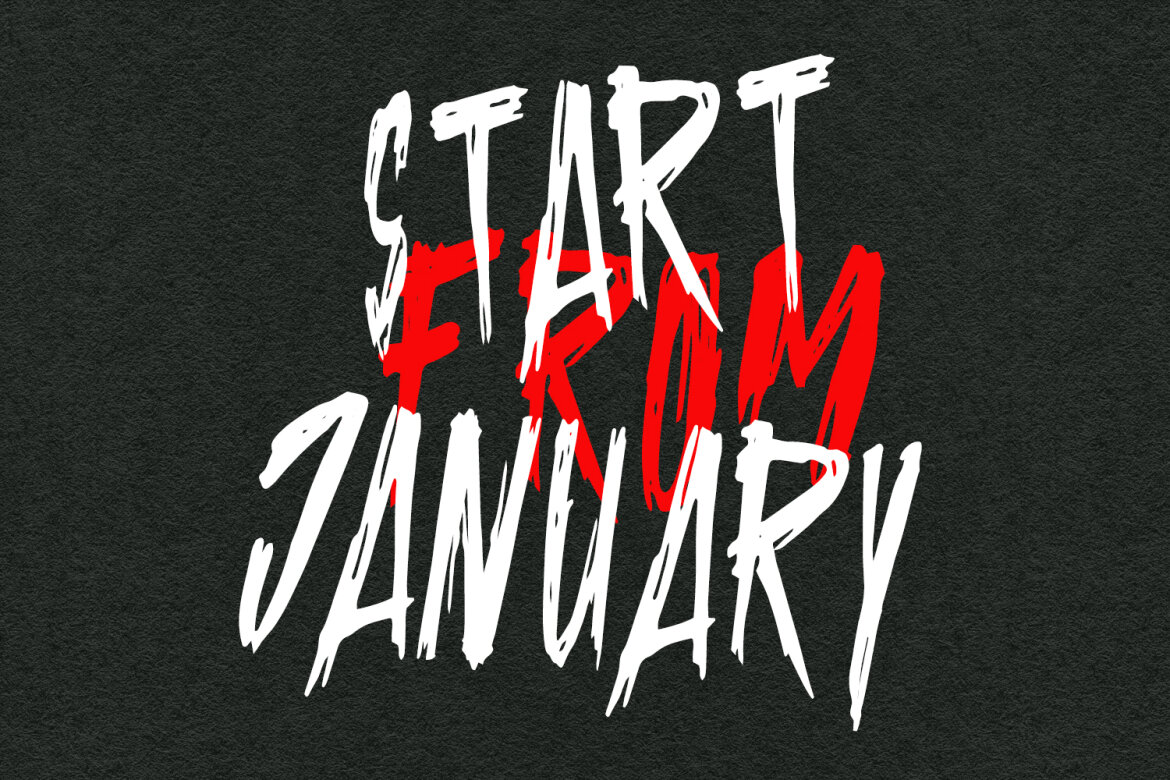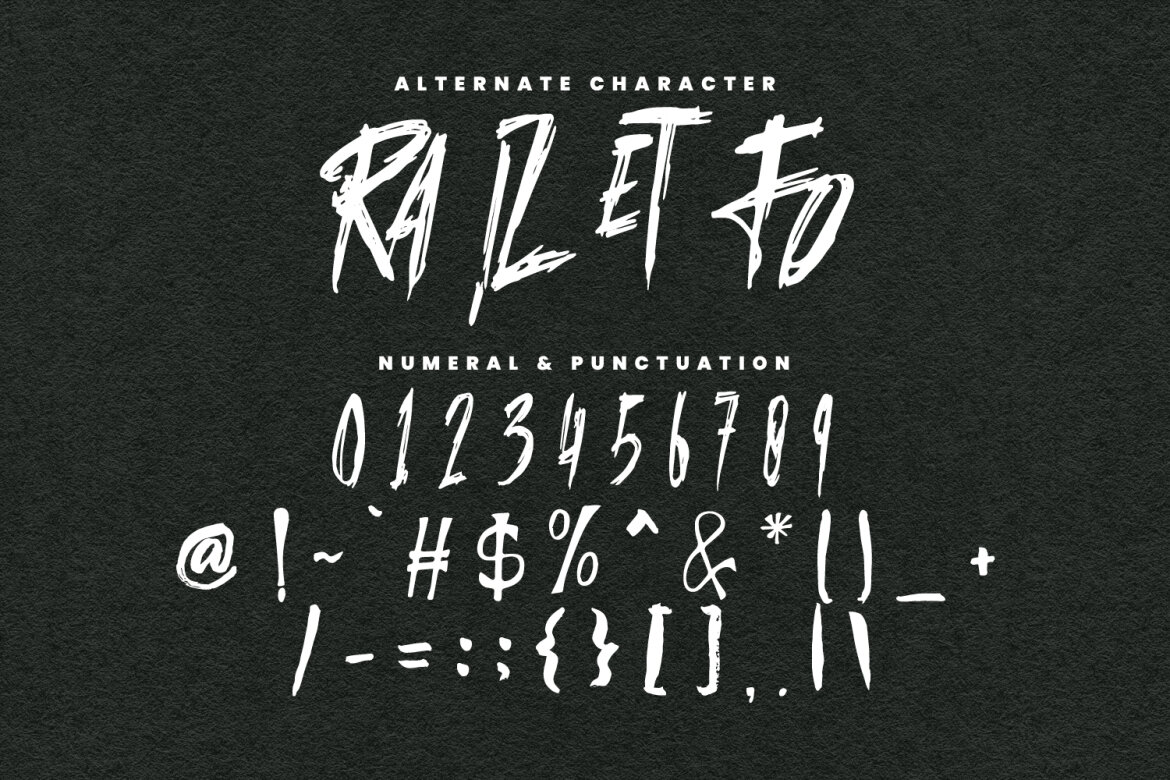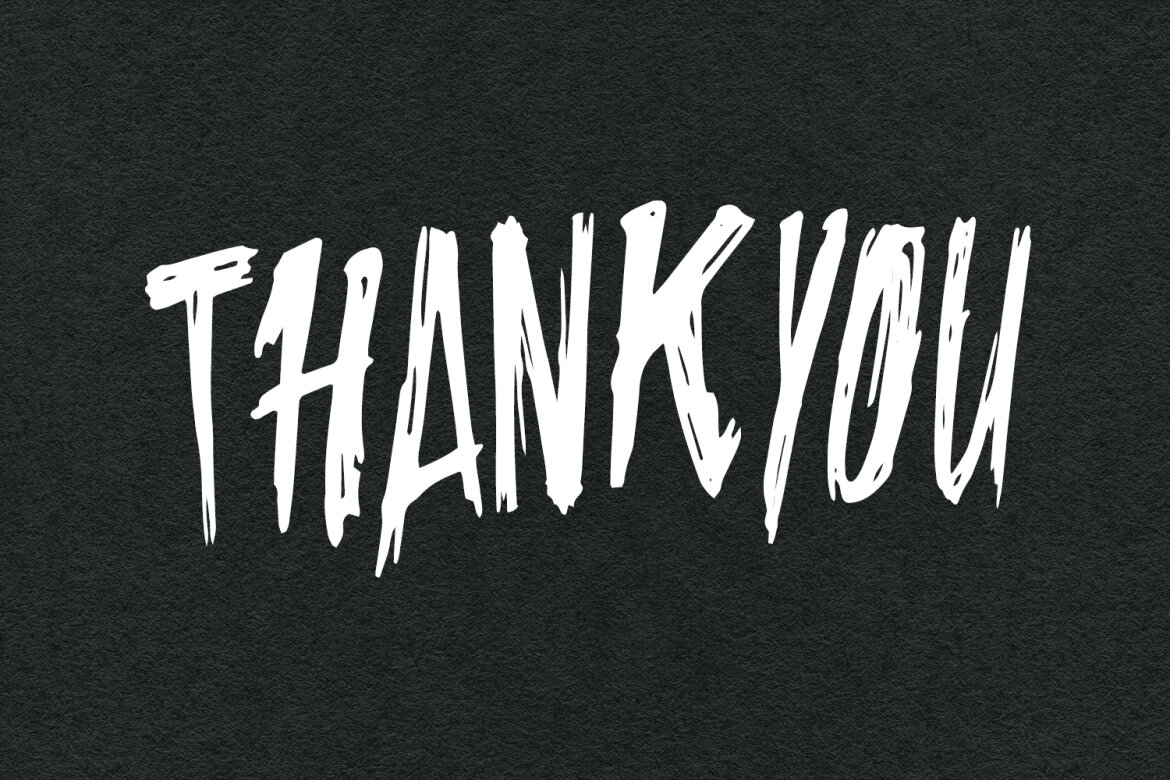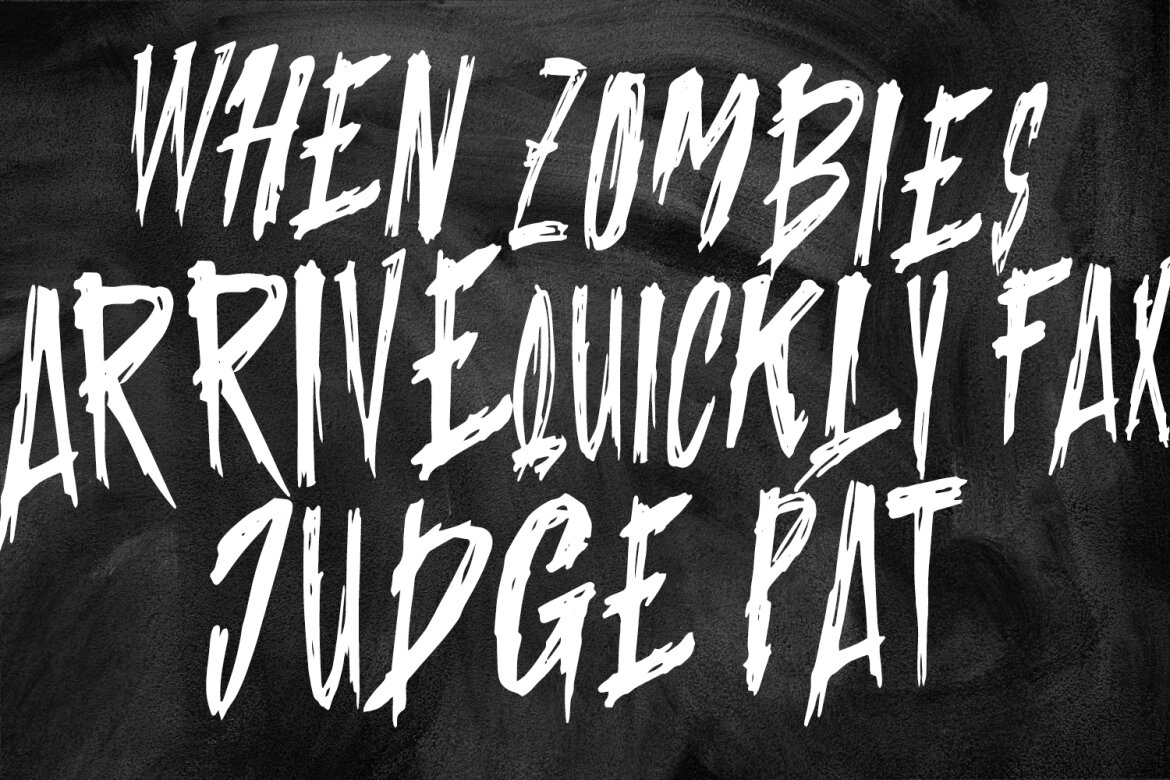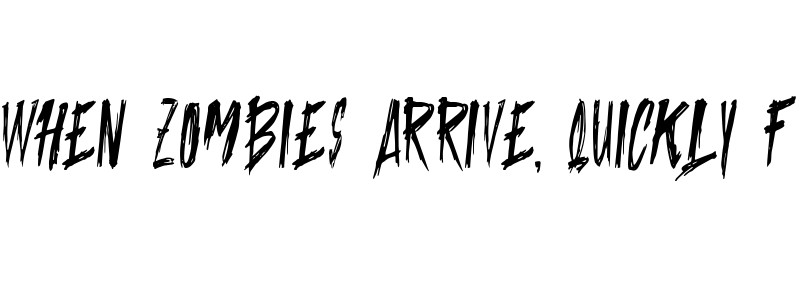
Craizets Demer FREE Brush Font
Craizets Demer
Craizets Demer handmade brush display font, fun character with ligatures. To give you an extra creative work. Craizets Demer handmade brush display font support multilingual language.